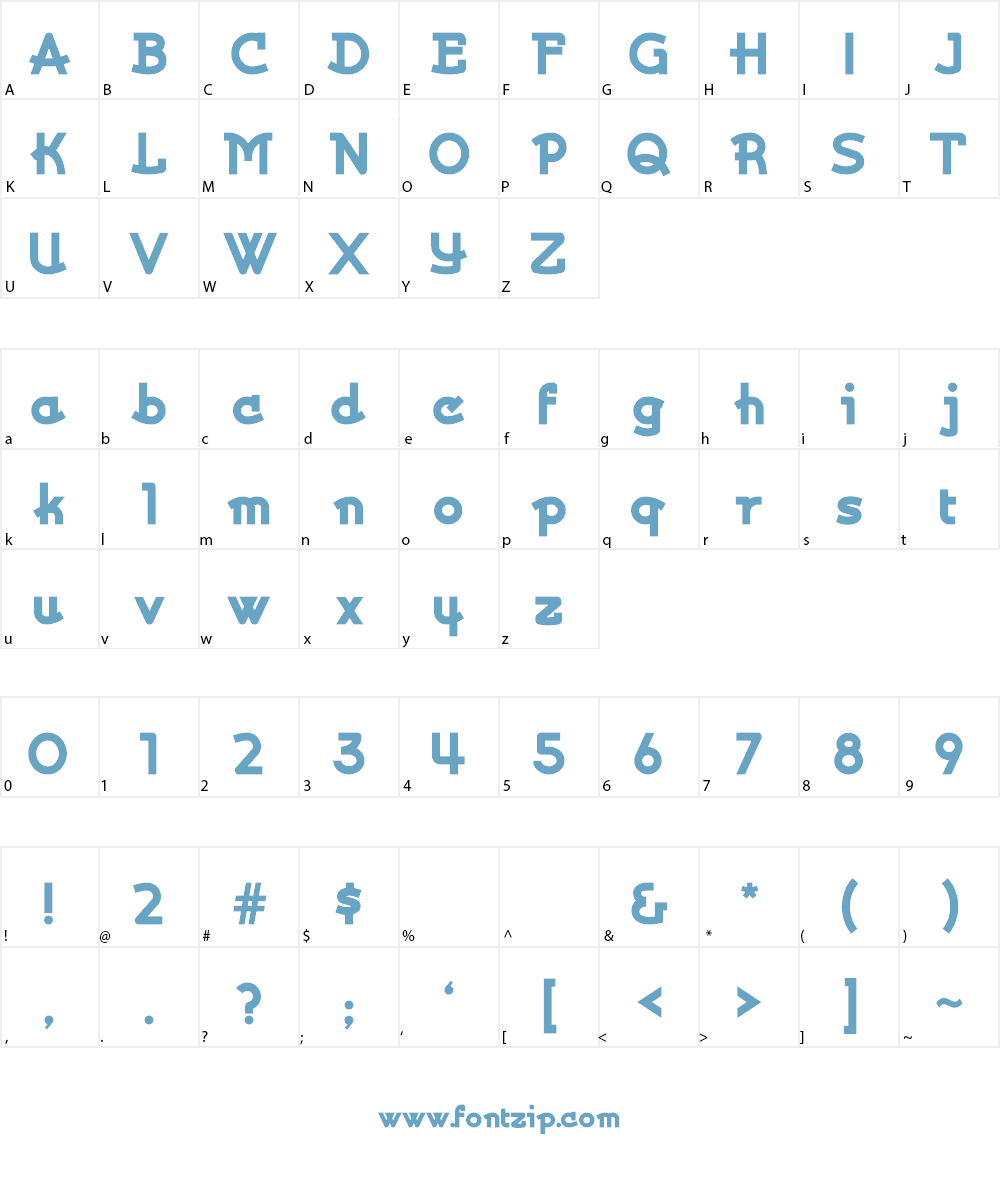
I found a font called PC Celon on a Japanese website, and kinda liked it. It was rather crudely drawn, and there were a number of inconsistencies in the character construction, but I liked the way the letters flowed. Unbeknownst to its creator, it was a classic Deco font waiting to happen.